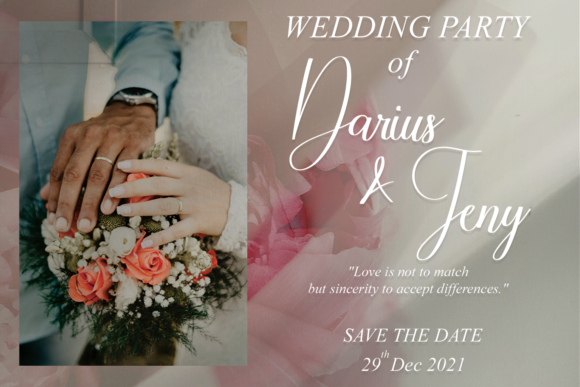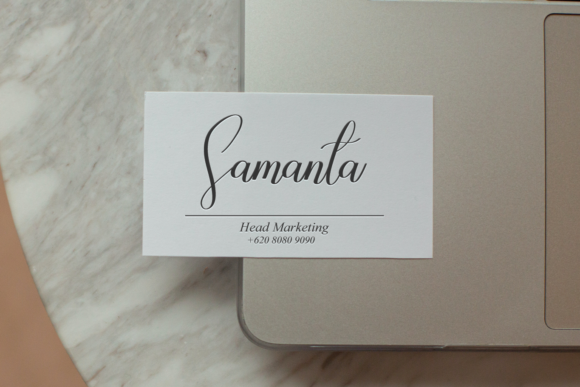
Valentine Moment Font
db-ku.com - Script & Handwritten -- Valentine Moment is a well-balanced and sweet calligraphy script font featuring characters that seem to dance along the baseline. It will add a luxurious spark to any creative design or project!